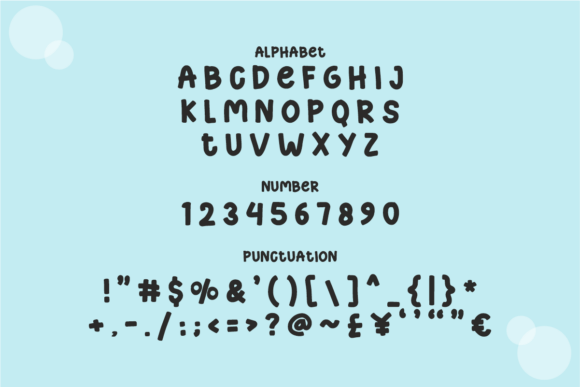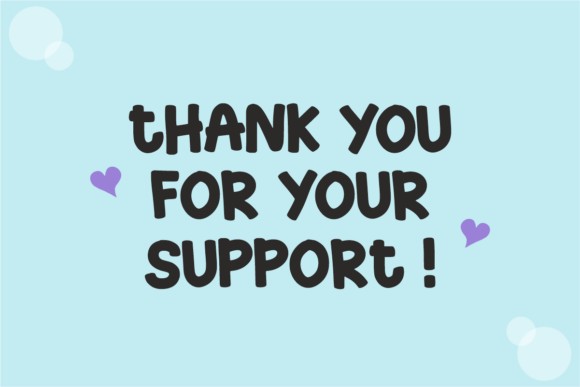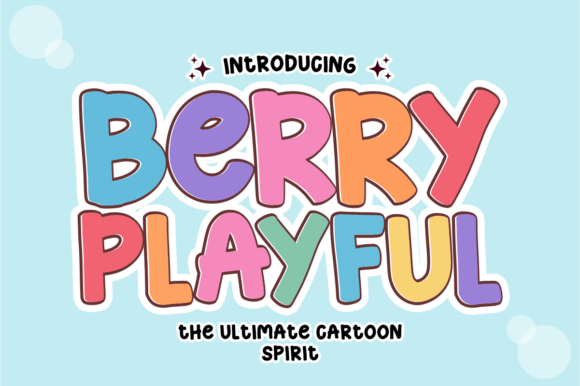
Sweeten Your Designs with Berry Playful: The Ultimate Cartoon Spirit Font 🍓
Have you ever been in the middle of a design project, and suddenly, you just can’t seem to find the right font? I recall a particularly frustrating moment when I was working on a kids’ birthday invitation, and my usual go-to fonts just weren’t cutting it. The design needed something playful, cheerful, and utterly charming. That’s when I stumbled upon “Berry Playful,” a delightful, bubbly display font that perfectly captures the “ultimate cartoon spirit” with a hand-drawn, organic touch.
The Magic of Berry Playful ✨
Berry Playful is more than just a font; it’s a design experience. Featuring thick, rounded curves and a cheerful personality, this font is designed to make your headlines pop and your projects feel full of life and joy! Whether you’re working on kids’ birthday invitations, eye-catching stickers, custom t-shirts, or social media graphics, Berry Playful is the perfect choice.
Why Berry Playful is a Top Pick
• ✅ High Visibility: Designed for high visibility and endless fun, Berry Playful balances a nostalgic retro vibe with modern playfulness.
• ✅ Easy to Read: Its smooth, bold silhouette makes it exceptionally easy to read, even from a distance.
• ✅ Versatile: Perfect for a wide range of projects, from kids’ party decor to playful branding.
What I Love About Berry Playful ✨
• ✨ The font’s ability to bring a playful, cartoonish vibe to any project.
• ✨ Its readability, even at smaller sizes, which is a huge plus for versatility.
• ✨ The way it pairs well with both bright and pastel color palettes.
• ⚠️ While Berry Playful is fantastic for headlines and titles, it might not be the best choice for body text due to its bold nature.
• ⚠️ Some users might find the font a bit too playful for more formal projects.
Berry Playful was born out of a designer’s desire to capture the essence of childhood playfulness in a font. Inspired by classic cartoon characters and the joy of creating something fun, the designer poured their heart into crafting a font that’s not just a tool but an experience. The result is a font that’s both nostalgic and refreshingly modern.
Does Berry Playful support OpenType features? Yes, Berry Playful supports OpenType features, allowing you to access a range of glyphs and stylistic alternates to enhance your designs.
Is Berry Playful available in different weights or styles? Currently, Berry Playful is available in a single style, but its versatility and range of OpenType features make it suitable for a wide variety of projects.
Berry Playful is more than just a font; it’s a way to infuse your designs with joy, playfulness, and a touch of whimsy. Whether you’re a designer, crafter, or hobbyist, this delightful font is sure to become a favorite in your collection.